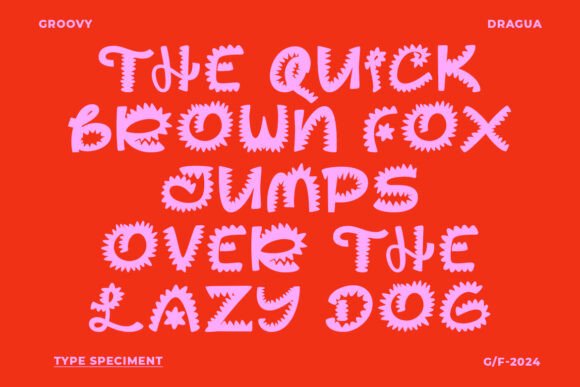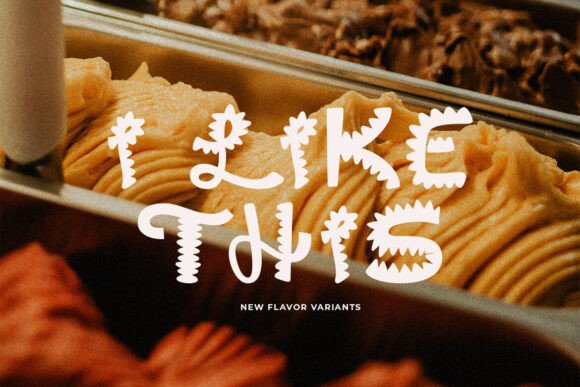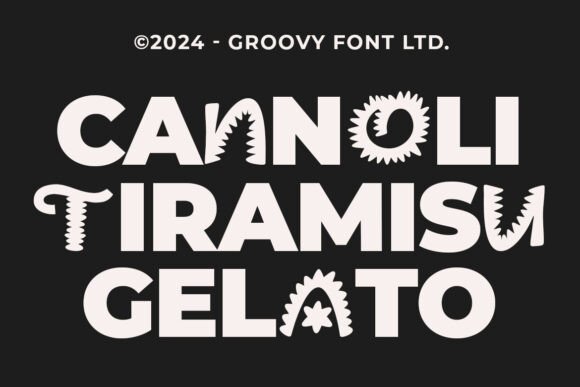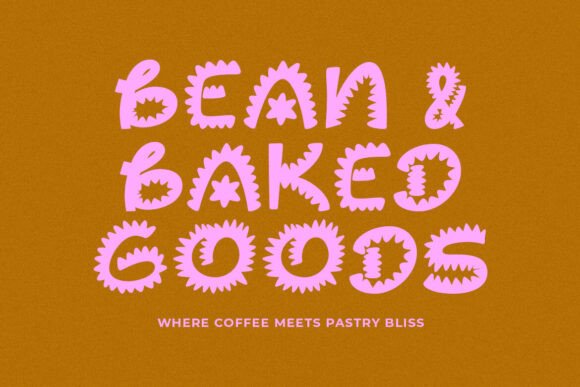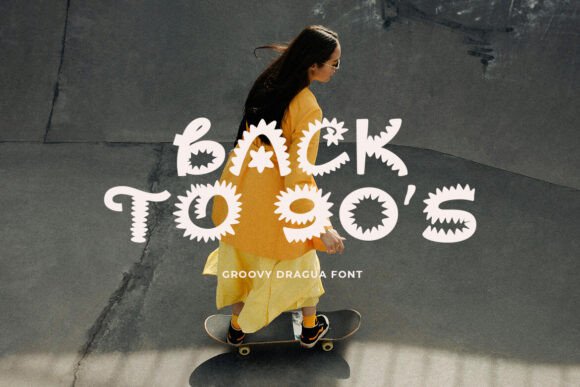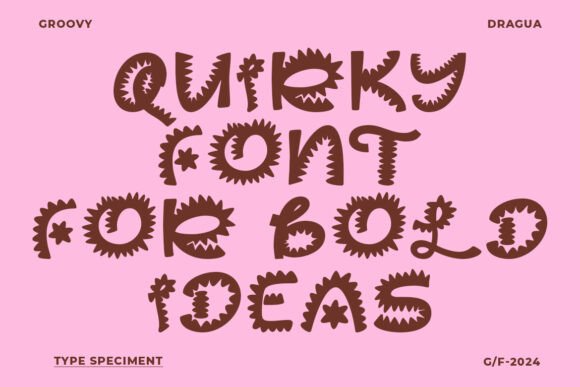
Get Ready to Groove with the Perfect Font
Have you ever been browsing through a vintage store or flipping through a stack of old magazines and stumbled upon a font that just screams ’70s? The kind of font that makes you want to put on your platform shoes and get funky? For designers, that moment is often the spark that sets their creativity ablaze.
Enter the Groovy Dragua Font, a playful and handcrafted display font that’s sure to transport you back to the grooviest decade of them all. With its distinctive serrated, saw-like shape, this font adds a touch of creativity and quirkiness to any project, making it an ideal choice for combining with sans-serif fonts or other typefaces to create dynamic and eye-catching designs.
For designers, the Groovy Dragua Font is a valuable tool that can inject a sense of energy and character into any composition, making it a standout choice for those seeking a playful and unconventional feel.
Groovy Dragua Font Key Features
- Font Family: Groovy Dragua
- Character Count: 500+ glyphs
- Unique Characteristics: This font features a unique blend of futuristic and distressed styles, making it ideal for bold and eye-catching designs. The font includes a wide range of glyphs, including Latin, Cyrillic, and Greek alphabets, as well as a variety of symbols and punctuation marks.
Groovy Dragua Font Review
I recently had the chance to work with the Groovy Dragua Font, and I must say it’s a mixed bag. Let’s start with what works well:
- ✨ The font’s retro vibe is on point, perfect for projects that need a funky, laid-back feel.
- ✨ The font is highly customizable, with a range of styles and sizes to choose from.
- ⚠️ The font may not be the best choice for formal or professional projects, as its playful nature may not be suitable for more serious content.
- ⚠️ Some users may find the font’s eccentricities distracting, especially when used in large quantities.
Overall, I think the Groovy Dragua Font is a great choice for projects that need a fun, retro feel. Just be aware of its limitations and use it judiciously. With the right project, this font can be a real showstopper!
The Groovy Dragua font is ideal for:
1. Creating a vintage or retro aesthetic.
2. Designing posters, flyers, or brochures.
3. Adding a touch of personality to your social media graphics.
4. Creating a unique and eye-catching logo.
Alternatives to Groovy Dragua Font
The Great Vibes Font is a modern, elegant script font that is perfect for creating a sophisticated and stylish design. It is ideal for use in logos, titles, and headings where a touch of luxury is required. In comparison to Groovy Dragua Font, Great Vibes Font has a more refined and polished look, making it suitable for high-end branding and design projects.
The Dancing Script Font is a lively and playful script font that is perfect for creating a fun and energetic design. It is ideal for use in posters, social media graphics, and other designs where a touch of whimsy is required. In comparison to Groovy Dragua Font, Dancing Script Font has a more carefree and spontaneous look, making it suitable for creative and artistic projects.
The Pacifico Font is a beautiful and elegant script font that is perfect for creating a relaxed and beachy design. It is ideal for use in beach-themed designs, travel brochures, and other projects where a touch of tropical flair is required. In comparison to Groovy Dragua Font, Pacifico Font has a more laid-back and casual look, making it suitable for summer-themed and outdoor design projects.